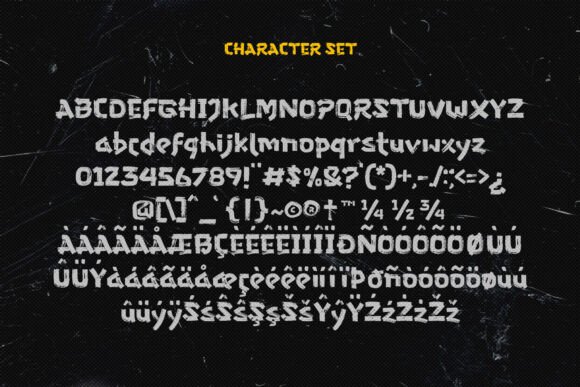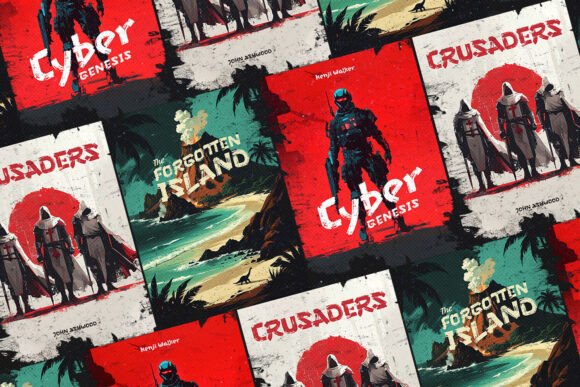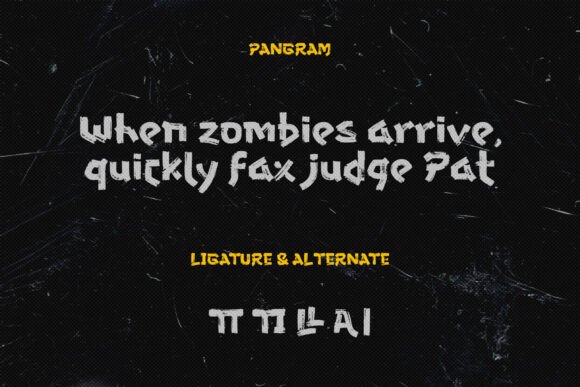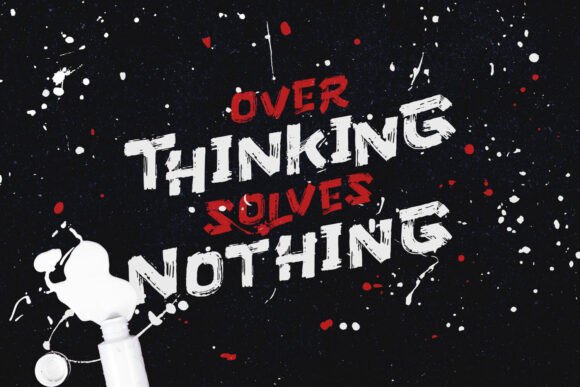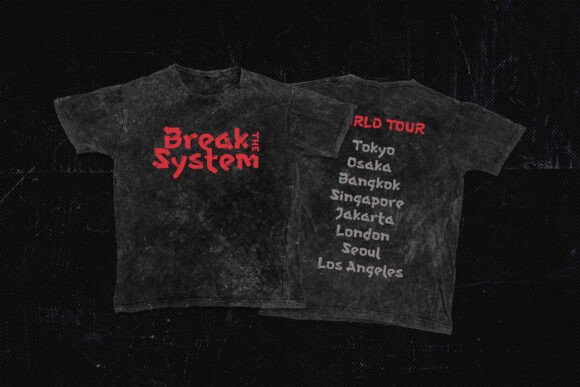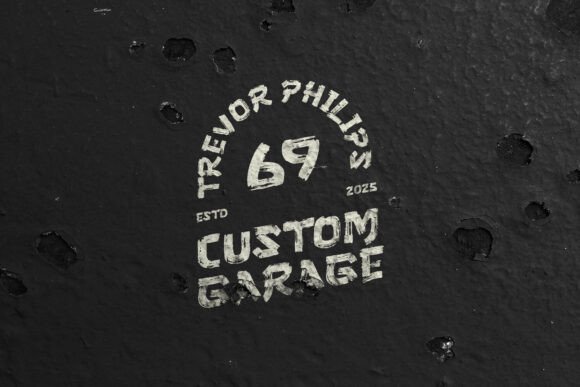
The Gozaru Font: A Game-Changer for Designers and Creative Hobbyists
I still remember the design project that led me to discover the Gozaru font. I was working on a movie poster for a friend’s indie film, and I was struggling to find the perfect font that would capture the edgy, playful vibe of the movie. The client wanted something bold, attention-grabbing, and unique. After hours of scouring through font libraries, I stumbled upon Gozaru, and it was love at first sight! ✨
In this article, I’ll share my experience with the Gozaru font, its features, and how to make the most of it in various design platforms. Whether you’re a designer, crafter, or creative hobbyist, you’ll learn how to harness the power of Gozaru to elevate your designs.
An Honest Review of Gozaru Font
What I Love About Gozaru
- ✨ Bold and attention-grabbing: Gozaru’s grungy and playful hand-drawn brush design makes it perfect for creating unique logos, movie titles, game titles, posters, book covers, and branding materials.
- ✅ Remarkable readability: Despite its edgy characteristics, Gozaru remains highly readable, making it both captivating and functional.
- 🎨 Versatile and creative: Gozaru’s textured stroke design and bold structures offer endless possibilities for creative experimentation.
While Gozaru is an amazing font, there are a few things to keep in mind: 🤔
- ⚠️ Limited use in body text: Due to its bold and grungy nature, Gozaru might not be the best choice for lengthy body text. It’s better suited for headings, titles, and emphasis.
- ⚠️ Some glyphs may require manual adjustment: Depending on the design platform, some glyphs or special characters might require manual adjustment to ensure proper alignment and spacing.
- Experiment with OpenType features like stylistic alternates and glyphs to add more creativity to your design.
- Access OpenType features like glyphs, stylistic alternates, and ligatures to enhance your design.
- Use font styles and text effects to make the most of Gozaru’s bold and grungy design.
The Backstory of Gozaru Font
While I couldn’t find any information on the designer’s inspiration, I imagine that the creator of Gozaru font was inspired by the raw energy of street art and the playfulness of hand-drawn typography. Perhaps they wanted to create a font that would capture the edgy, bold spirit of urban culture and make it accessible to designers and creative hobbyists.
Q: What is Gozaru font best used for?
A: Gozaru font is best used for creating unique logos, movie titles, game titles, posters, book covers, and branding materials that require a bold, attention-grabbing design.
Q: Is Gozaru font suitable for body text?
A: No, Gozaru font is not recommended for lengthy body text due to its bold and grungy nature. It’s better suited for headings, titles, and emphasis.